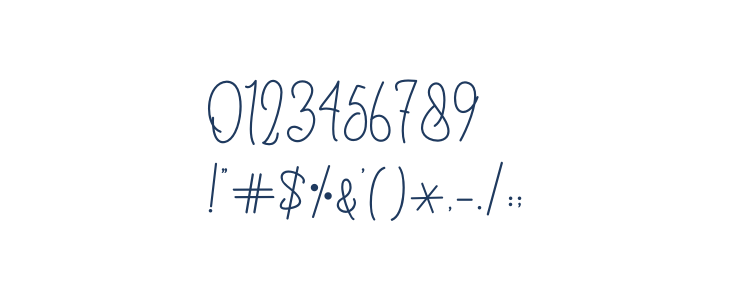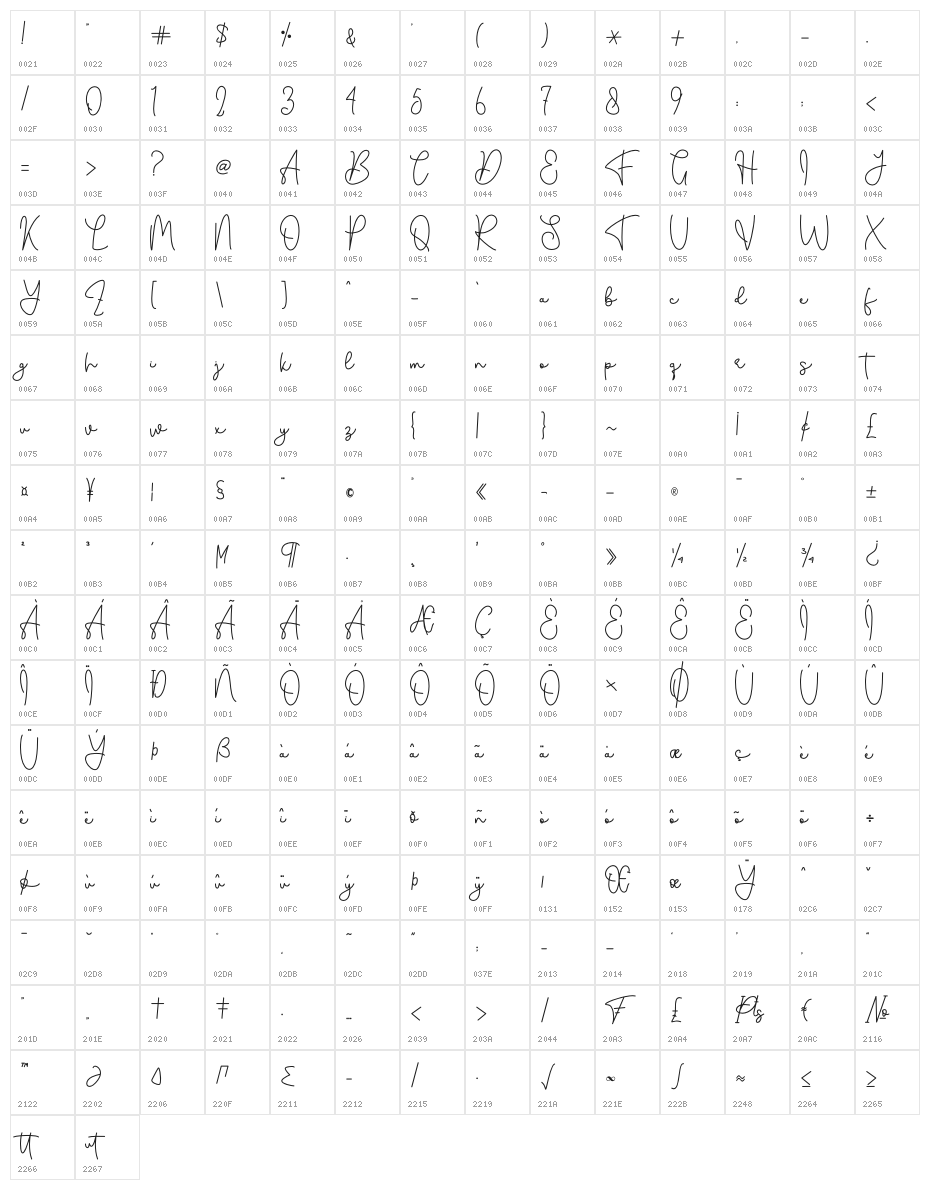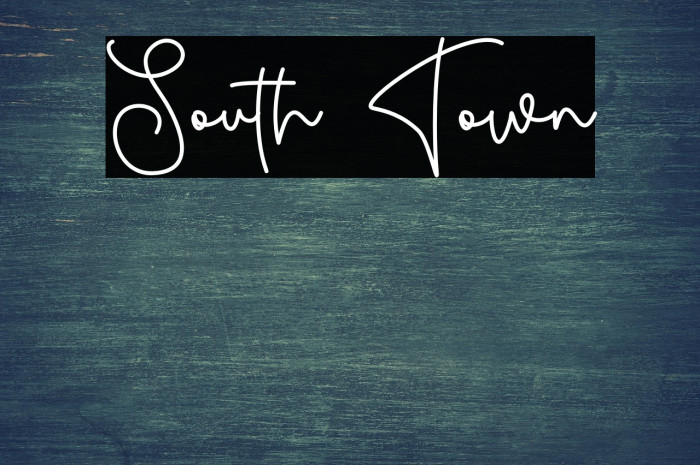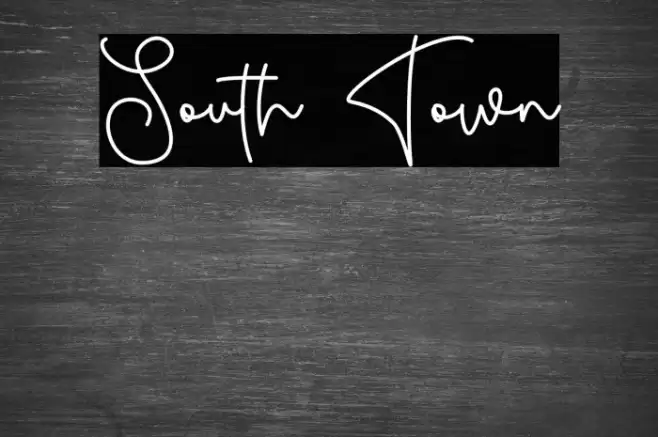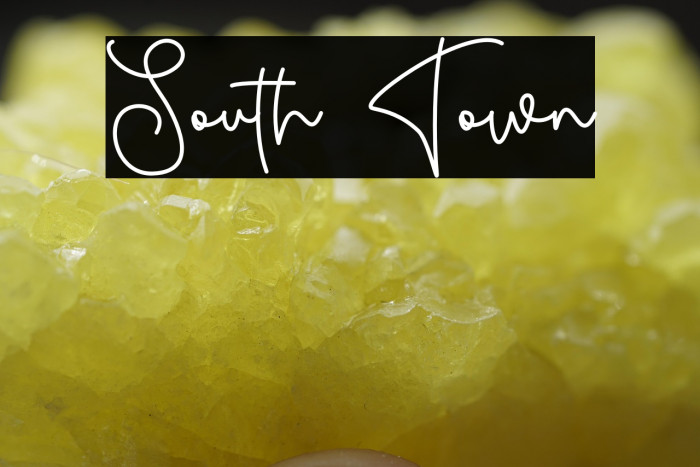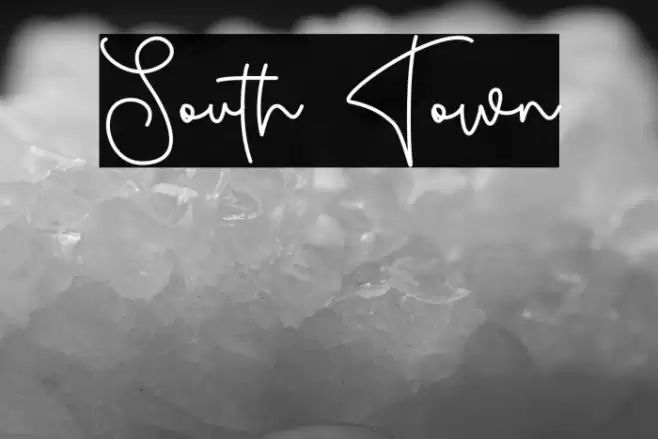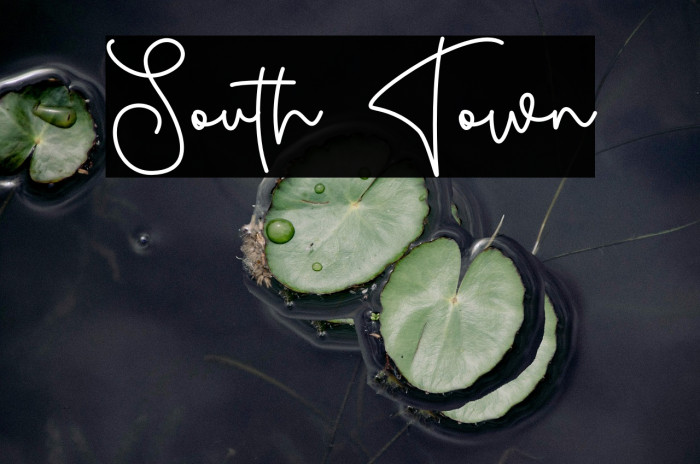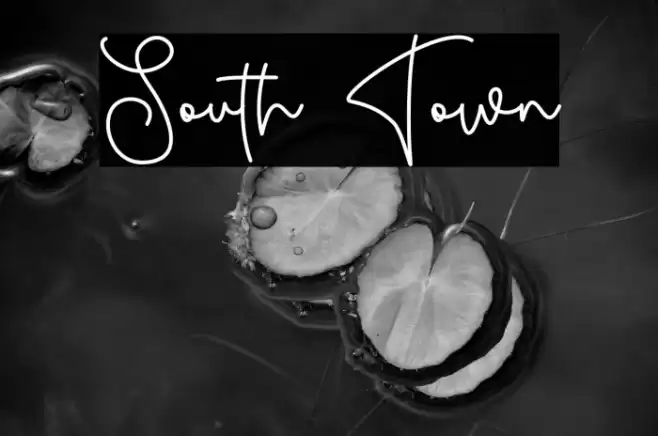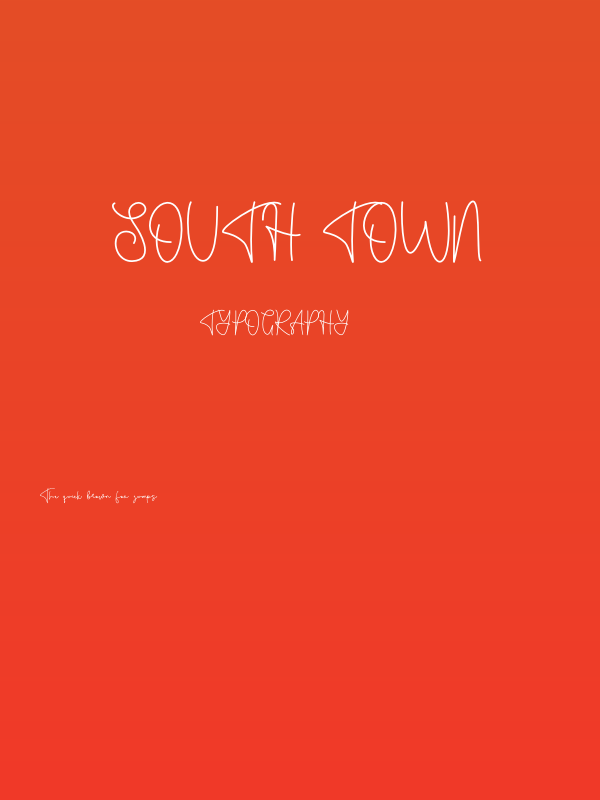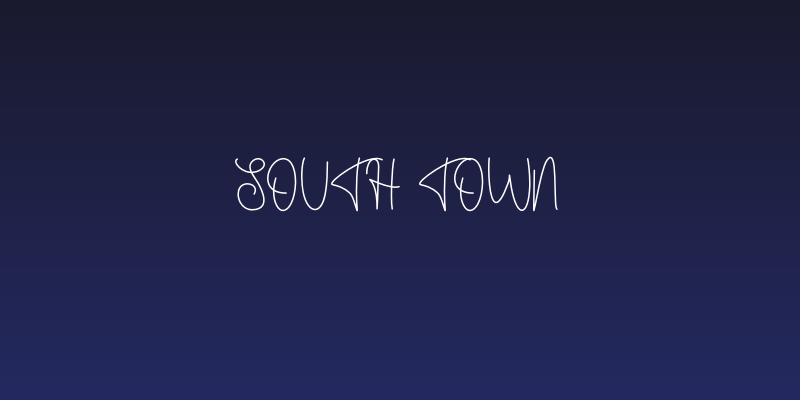
South Town Font
South Town Description
This font features a playful and whimsical handwritten style, characterized by its fluid and flowing letterforms. The uppercase letters exhibit a unique blend of curves and angles, creating an artistic and dynamic appearance. The lowercase letters maintain a consistent style, with smooth connections and a casual, friendly vibe. The numerals are distinct and easy to read, while the special characters add a touch of creativity with their varied shapes. Overall, this font exudes a sense of fun and informality, making it ideal for projects that require a personal and approachable touch.
| Overall Style | Casual, Artistic |
| Use Case | Headlines, Invitations, Personal projects |
| Proposed Projects | Greeting cards, invitations, personal branding, social media graphics, and creative posters. |